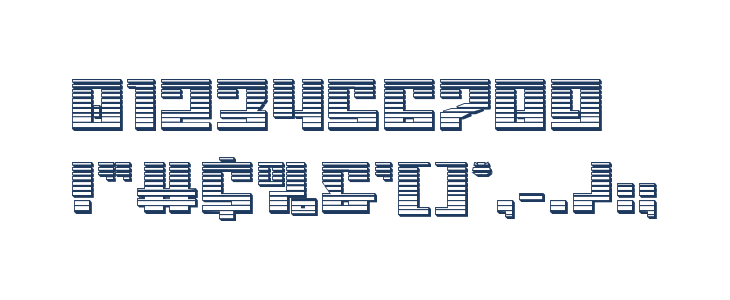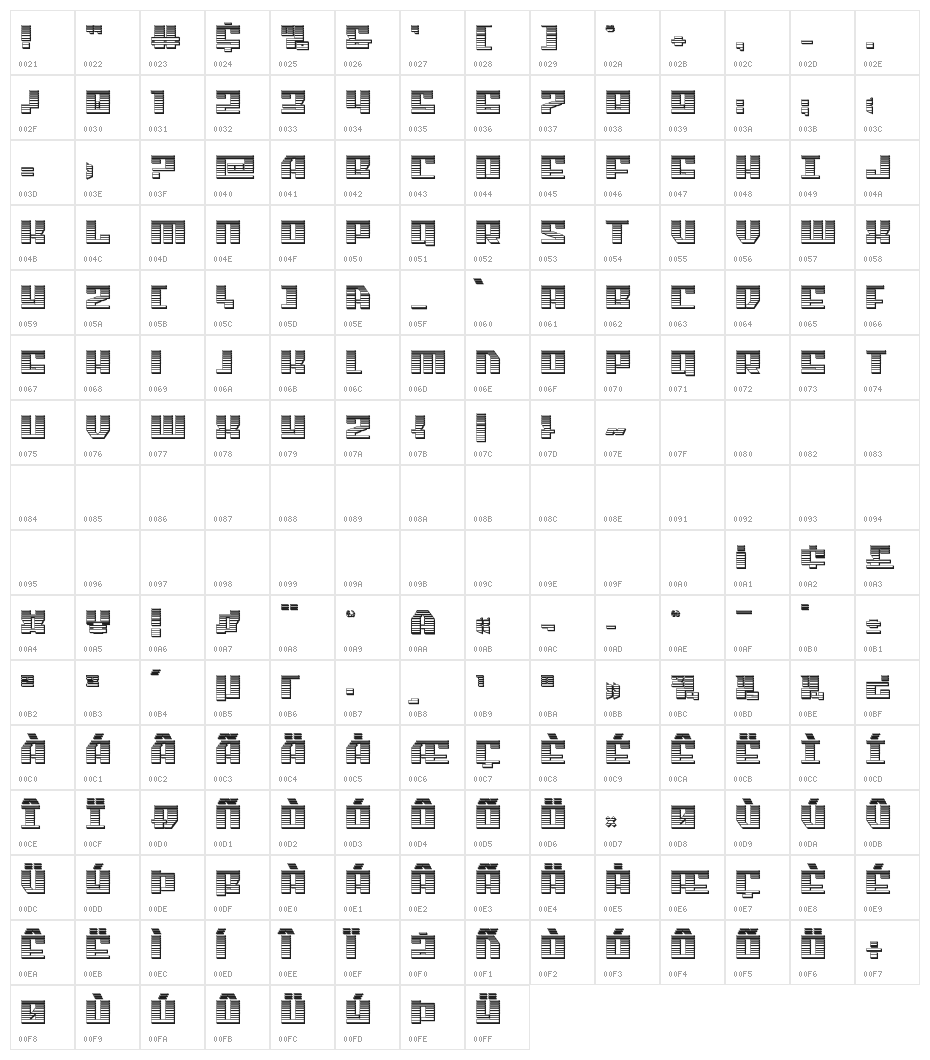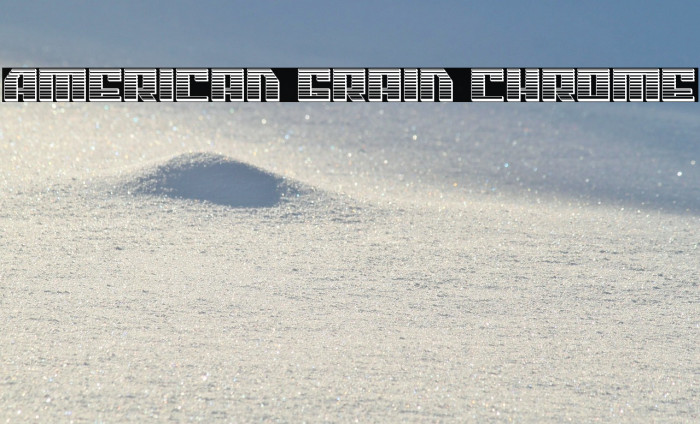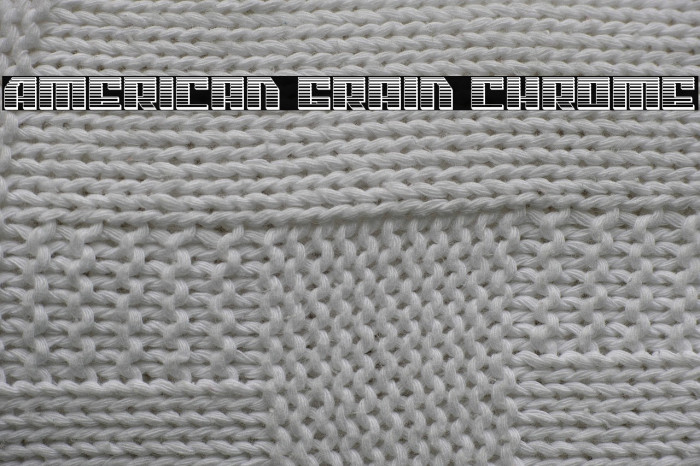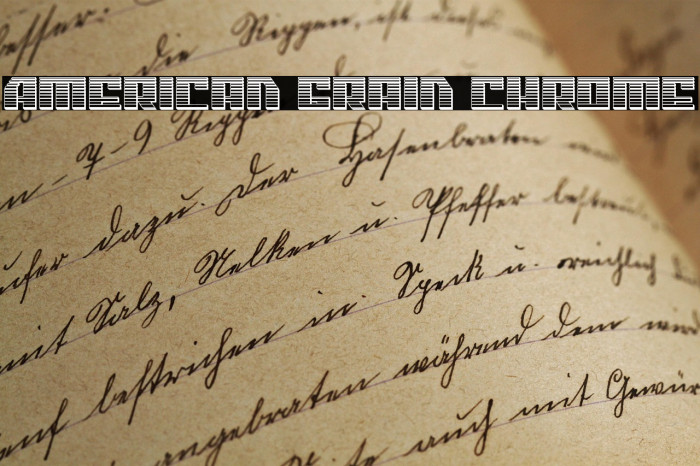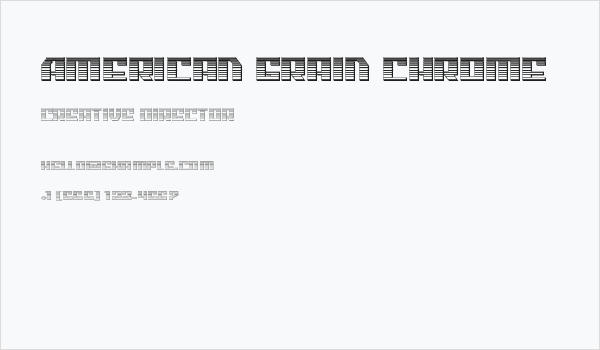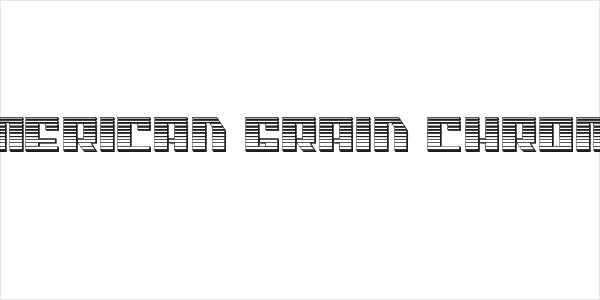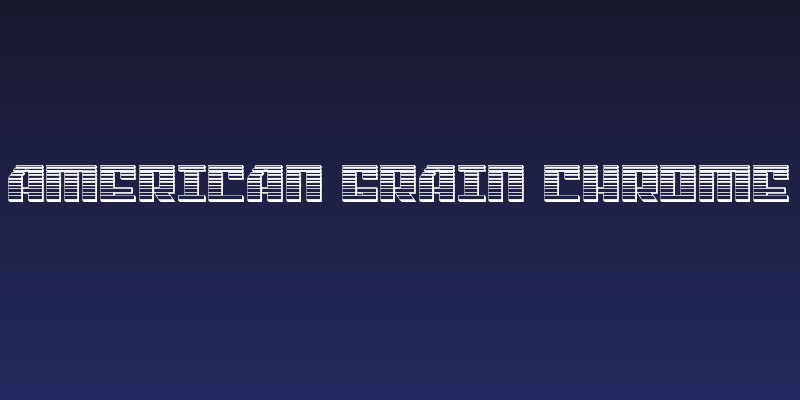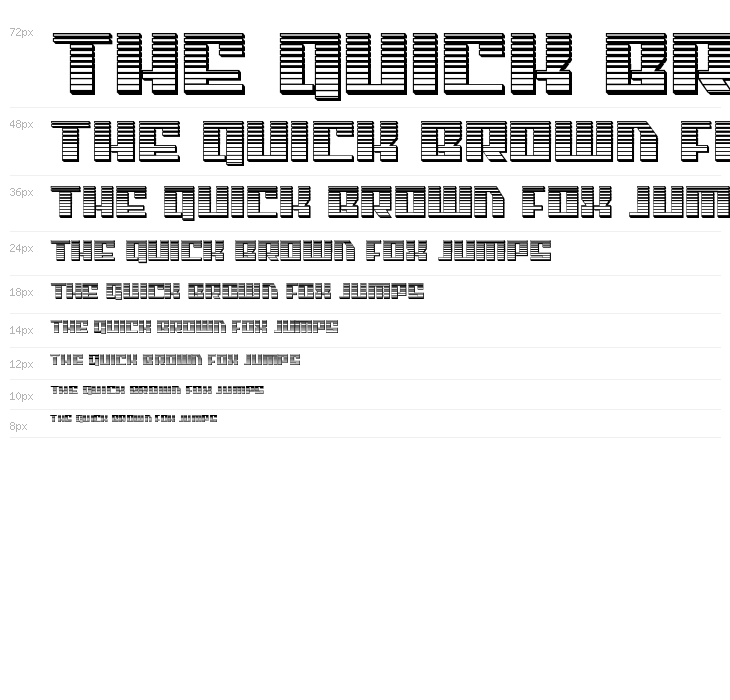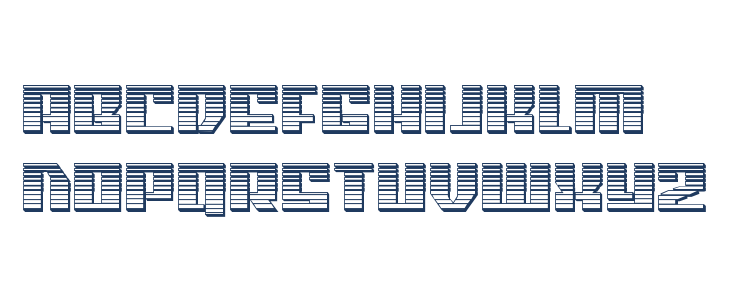
American Grain Chrome Font
American Grain Chrome Description
This font features a bold, geometric design with a distinct three-dimensional effect created by horizontal lines running through each character. The uppercase letters are particularly striking, with sharp angles and a blocky appearance that gives them a strong, industrial feel. The lowercase letters maintain this boldness, ensuring consistency across the typeface. Numbers and special characters are designed with the same attention to detail, making them stand out with their unique, layered look. The font's overall style is reminiscent of retro-futuristic aesthetics, making it ideal for projects that require a bold and eye-catching display.
| Overall Style | Retro-Futuristic |
| Proposed Projects | Ideal for posters, logos, video game graphics, and any project needing a bold, eye-catching display. |